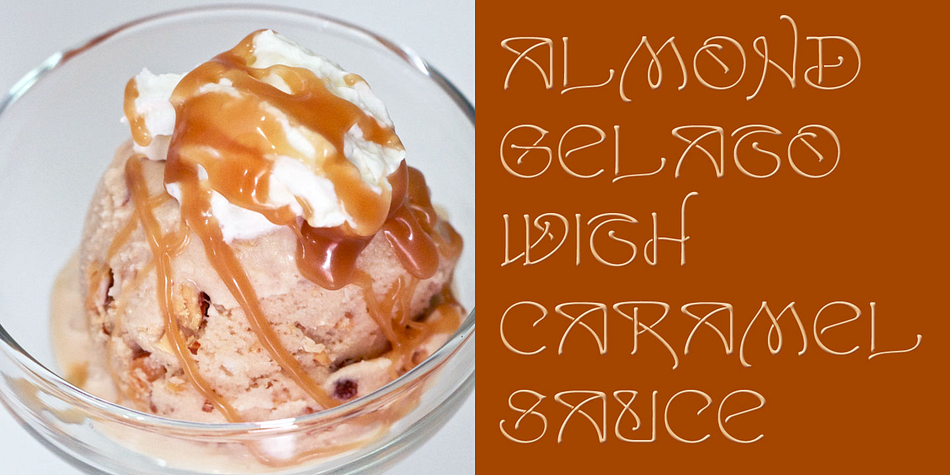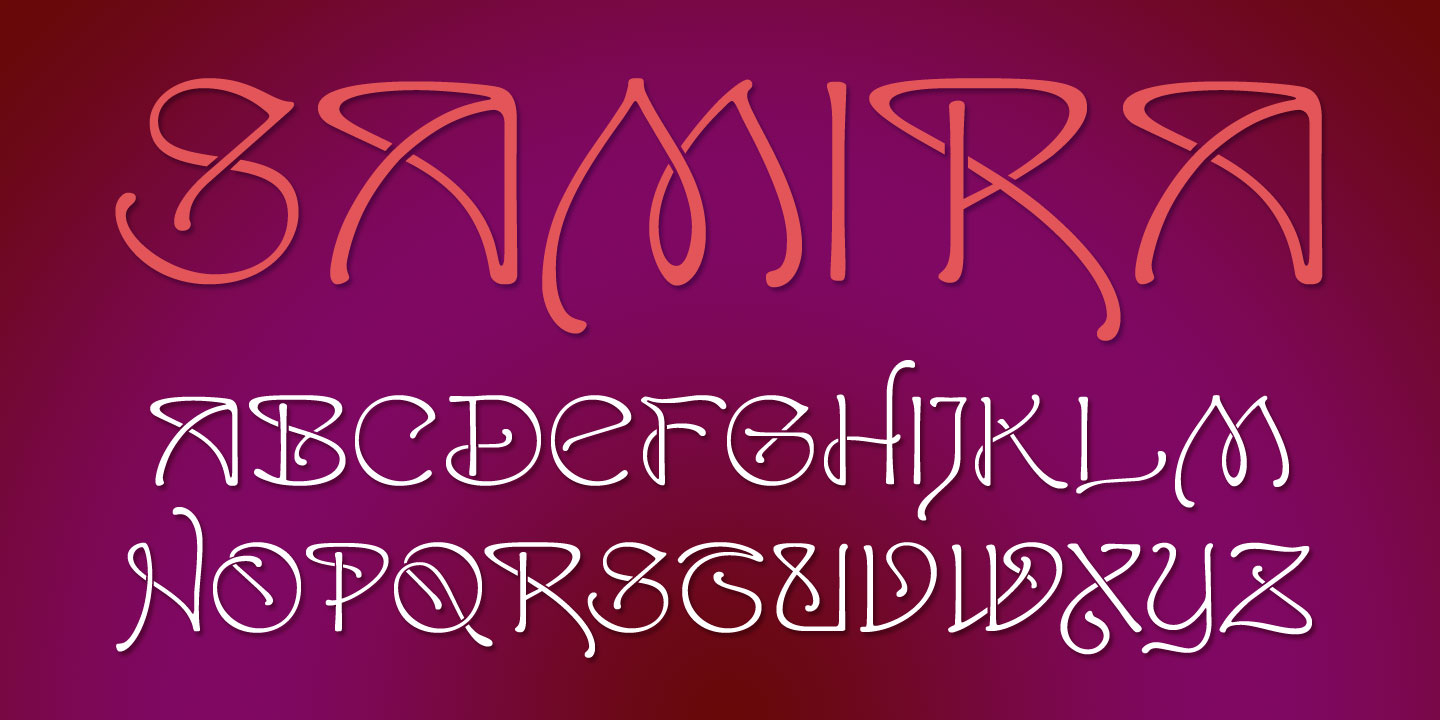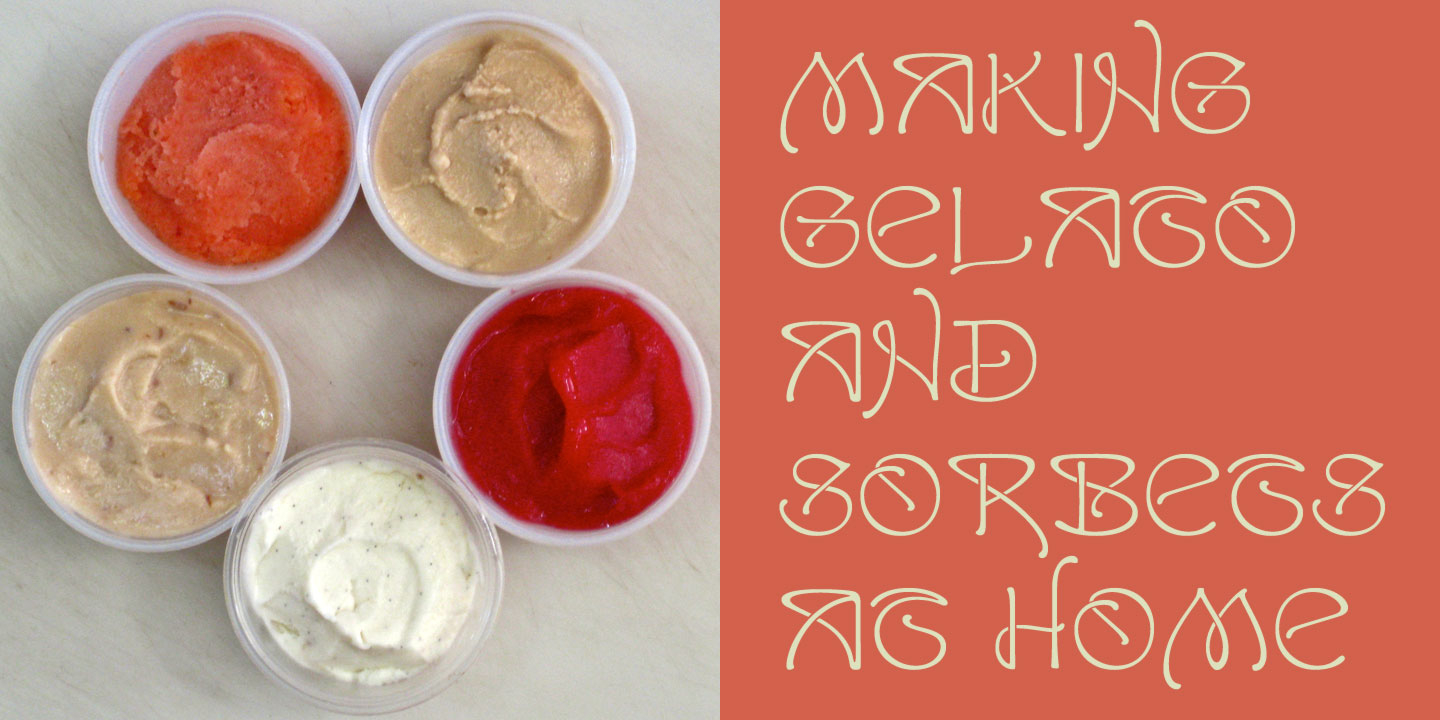
Samira is an art nouveau font published by CastleType.
I must admit that I am not a big fan of the Art Nouveau style. However, I found a particularly beautiful Art Nouveau style alphabet, hand-drawn by Peter Schnorr in about 1898, that I decided to use as the basis for this new font. Samira™ is very graceful, elegant, and dare I say, organic. Includes some intertwined ligatures. Complete uppercase, numerals, basic punctuation. Supports most Western European languages.